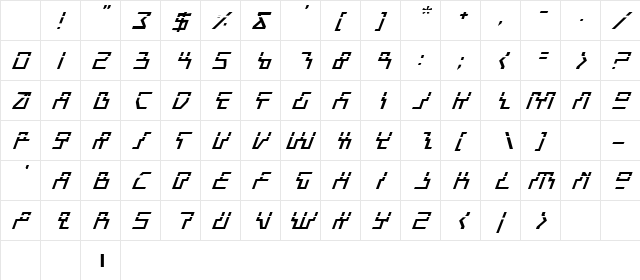
Complete Beam Rider Laser Italic Laser glyph index. Displaying only characters natively supported by Beam Rider Laser Italic Laser font.
Beam Rider Laser is a composed and adaptable typeface that performs quietly and consistently across a wide range of design contexts. The slanted form adds forward momentum and visual energy.